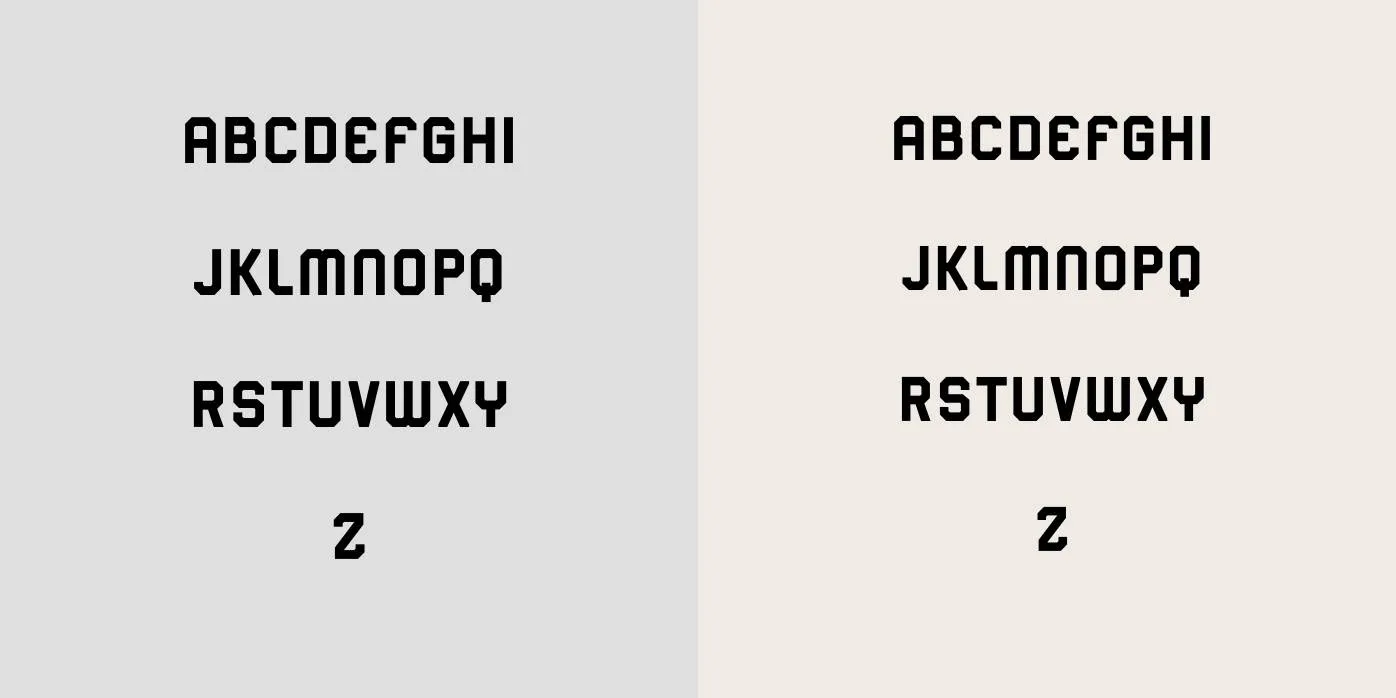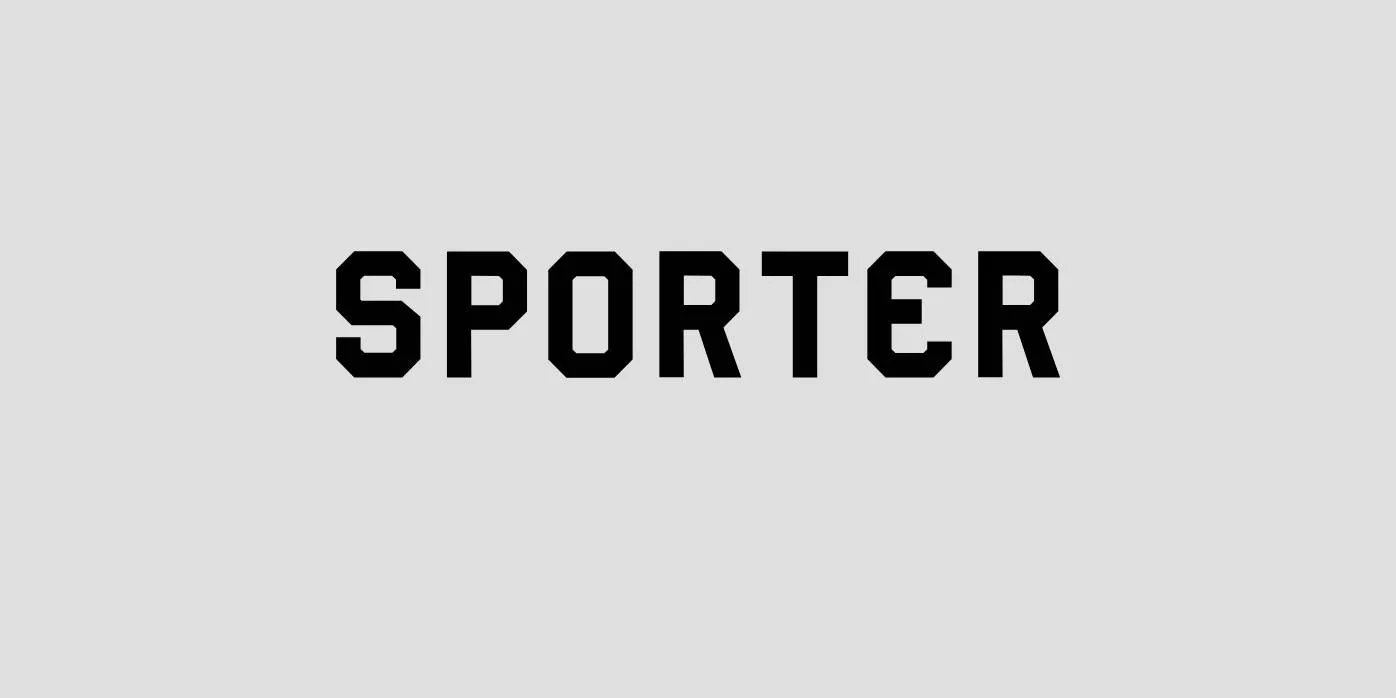
Sporter Font
Bangkit Tri Setiadi designed the Sporter texture. Sporter Font is a fancy Font. You can download this typeface in both TTF and OTF formats. This font character is available in different sizes, shapes, and styles.
The name of this typeface is Sporter Regular. This texture has bold characters which increase the font readability. So in this way, it has its main use in highlighting the texture. It has a wide range of features because this typeface has bold characters.
This typeface has characters and glyphs that support capital letters, lowercase letters, numbers, punctuation, and special letters.